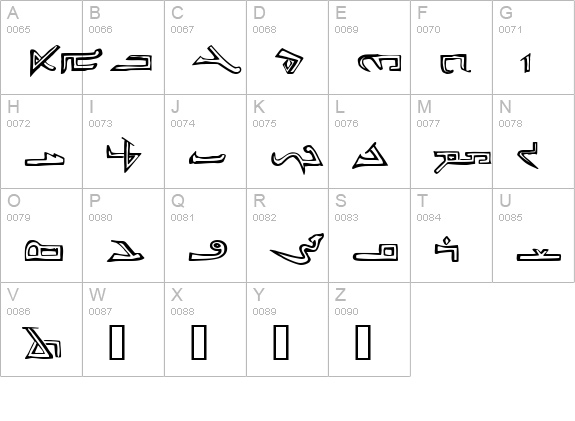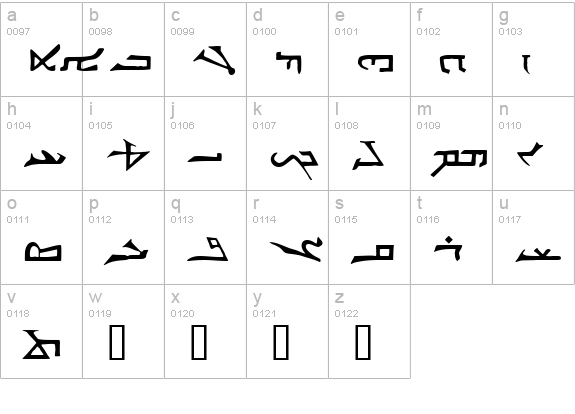
syriac Font Details
The Syriac font is a beautifully crafted typeface that captures the elegance and tradition of the Syriac language. With its intricate details and ornate design, this font is perfect for adding a touch of sophistication to your projects. Whether you are designing a book cover, creating a logo, or crafting a piece of art, the Syriac font will surely make a statement. What's even better is that this stunning Syriac font is available for free download at FontsMarket.com. Yes, you read that right - you can enhance your creative endeavors with this exceptional font without spending a penny. So why wait? Download the Syriac font today and let your creativity flourish with this exquisite typeface.